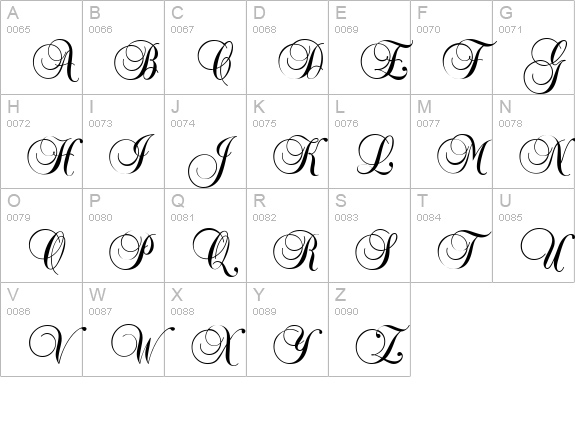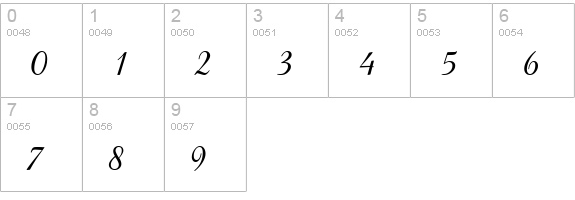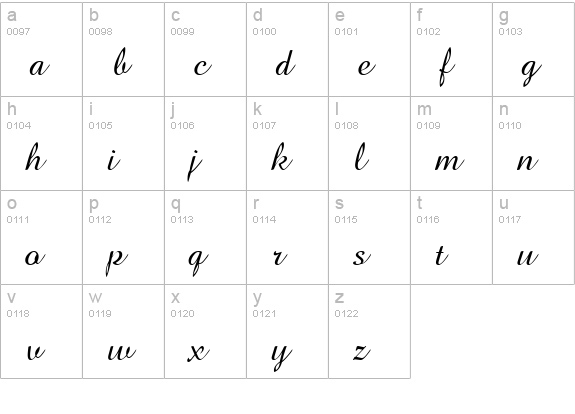
BrockScript Font Details
BrockScript is a charming and elegant font that exudes sophistication and timeless appeal. With its delicate strokes and fluid curves, this script font adds a touch of class to any design project. Whether you're creating invitations, greeting cards, or branding materials, BrockScript will elevate your work to a whole new level. The best part? BrockScript is available for free download at FontsMarket.com. You can easily access this beautiful font and incorporate it into your designs without any hassle. So go ahead and give your projects a touch of elegance with BrockScript - the perfect choice for those looking to add a dash of style and flair to their work.